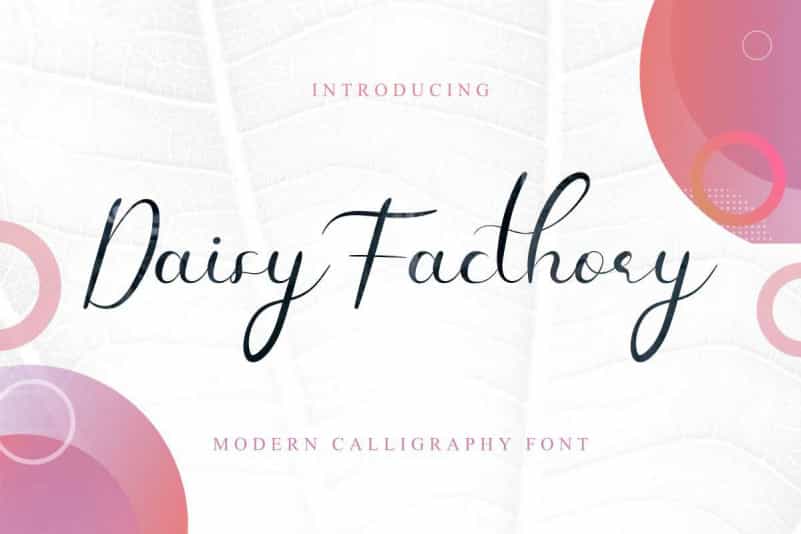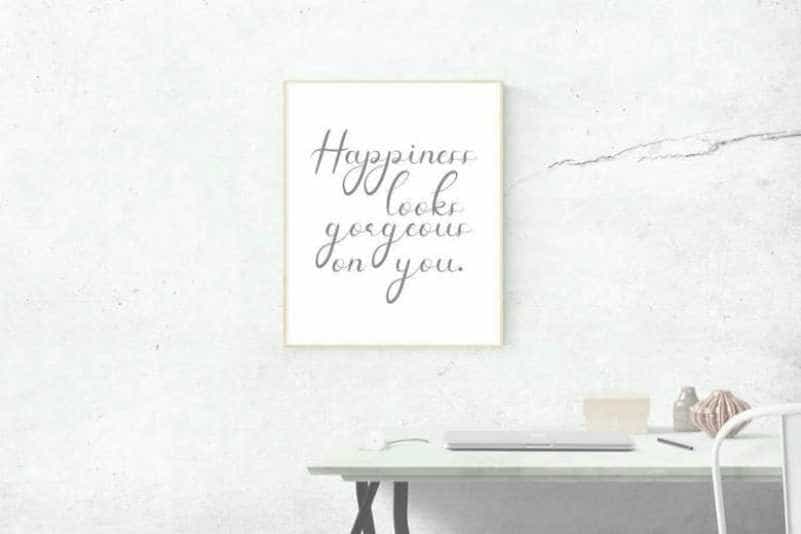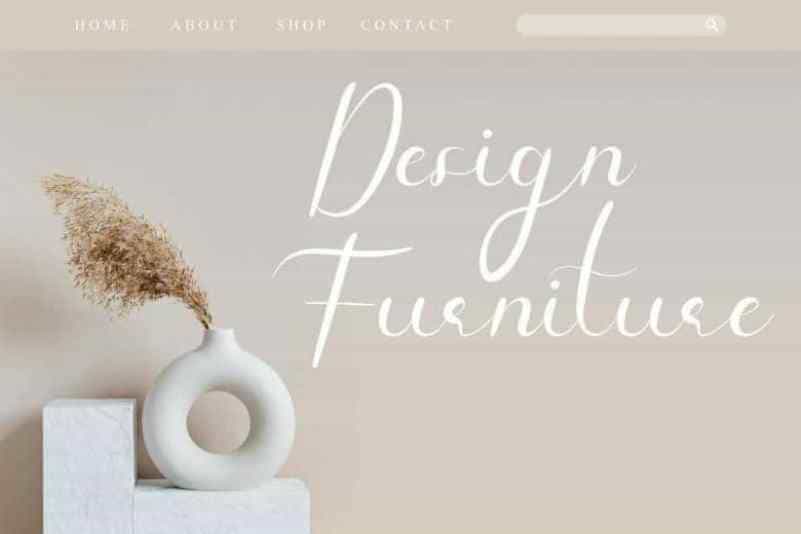
Daisy Facthory is a beautiful calligraphy typeface created to express elegance and class. It’s slim, feminine and amiable, this font is elegant and casual with swashes. It can be used for a variety of uses. For example, logos packaging wedding invitations and headlines. labels, signage and signatures books, book covers posters, quotes, and much more.